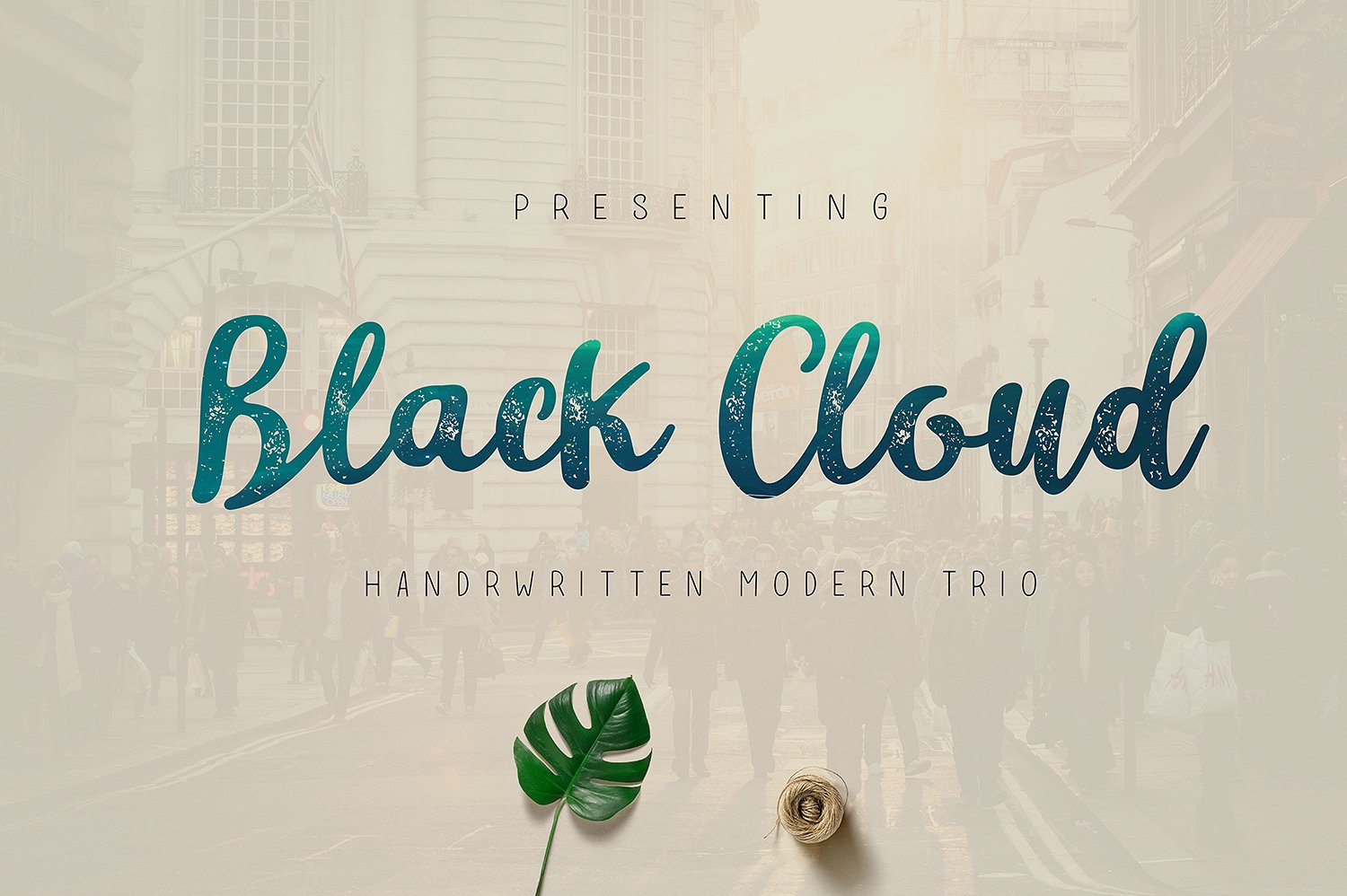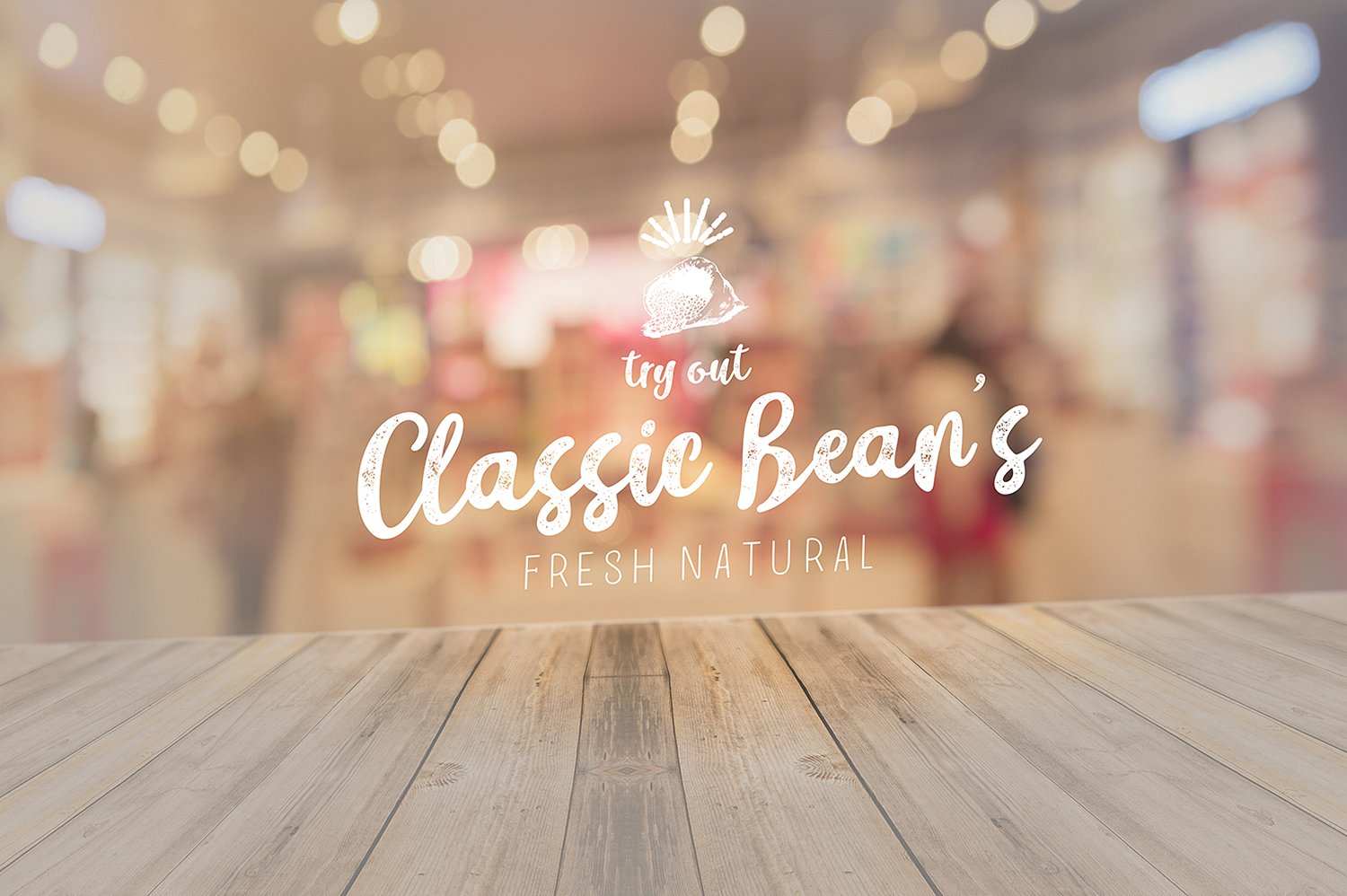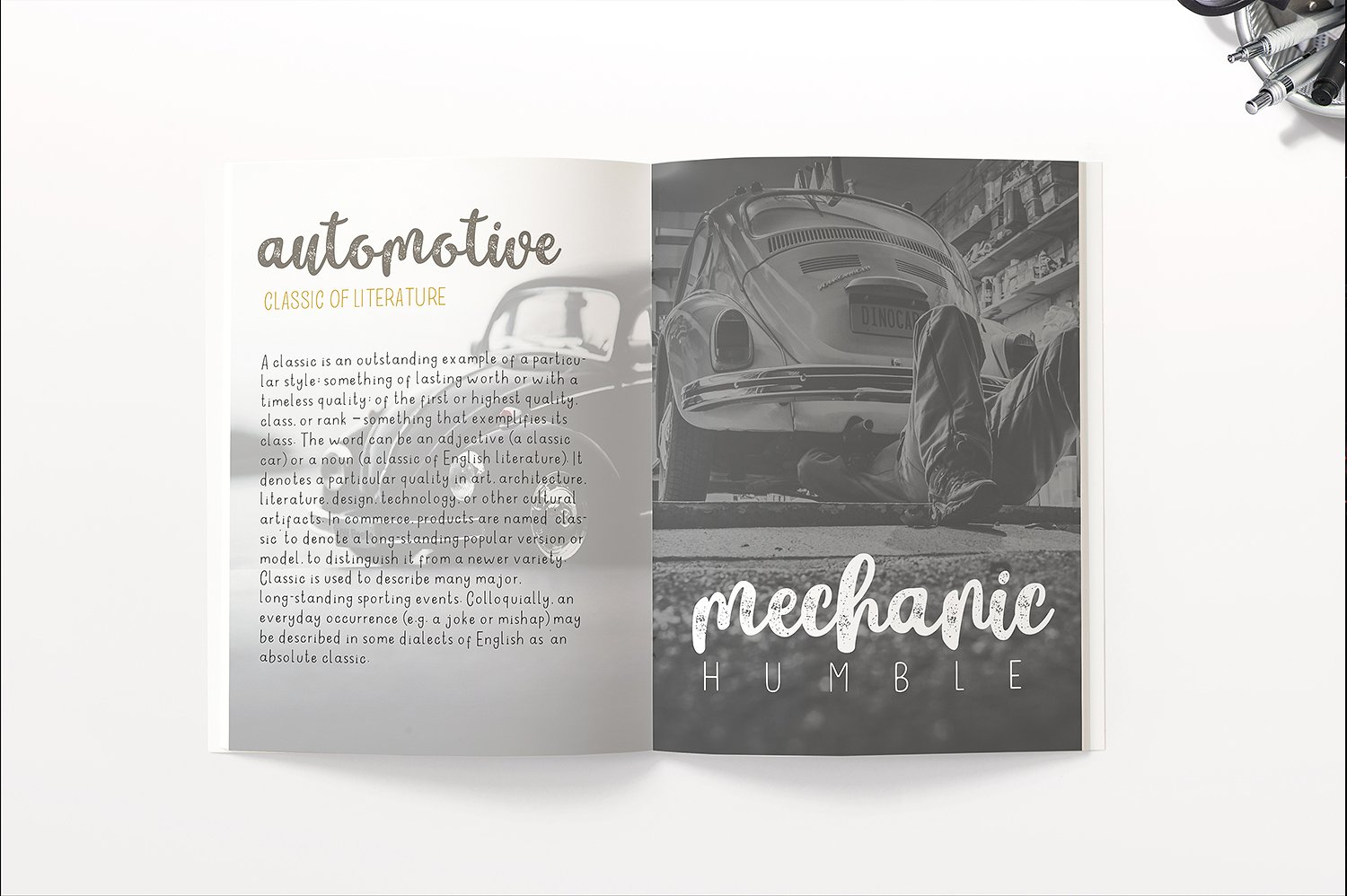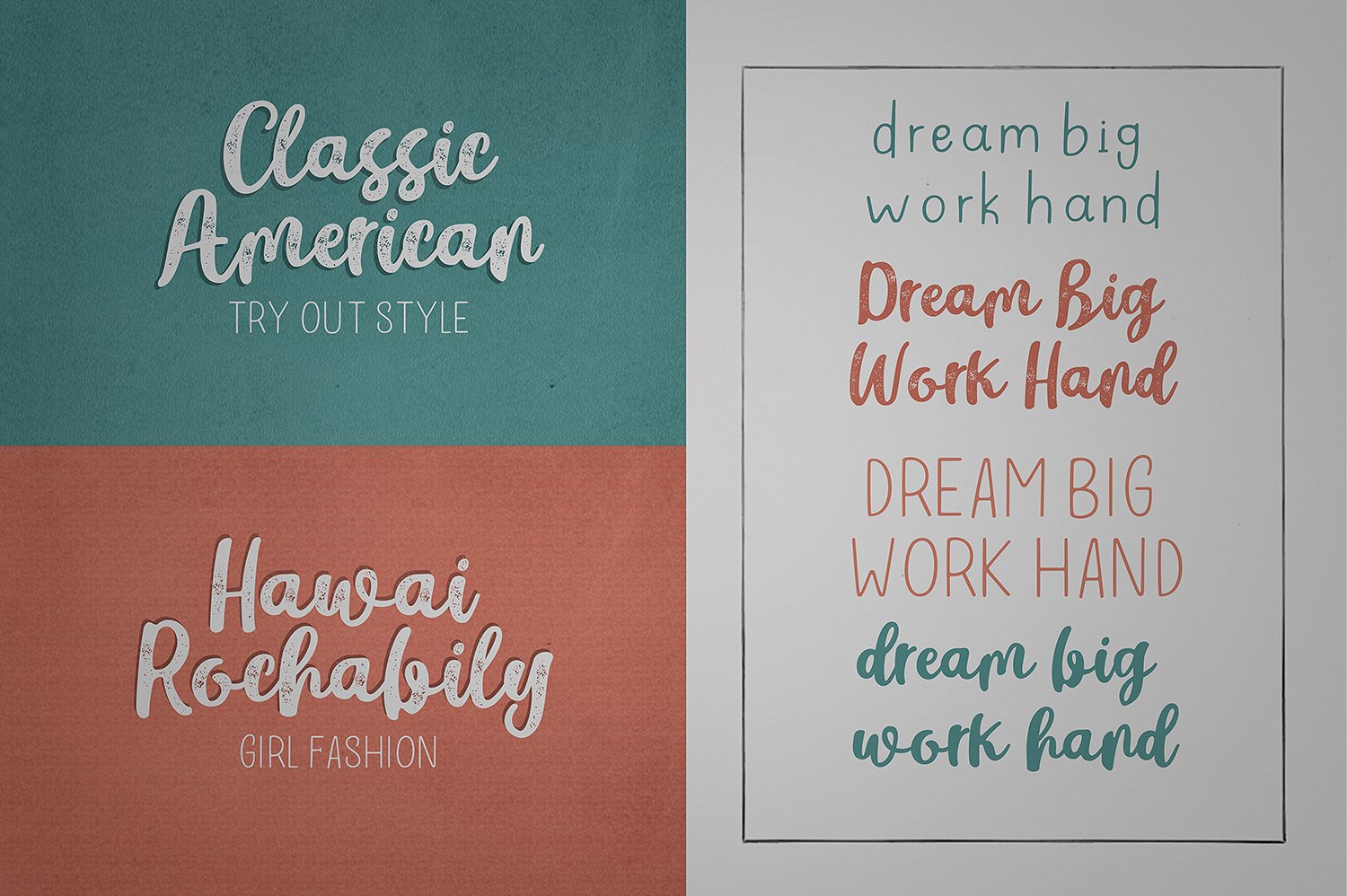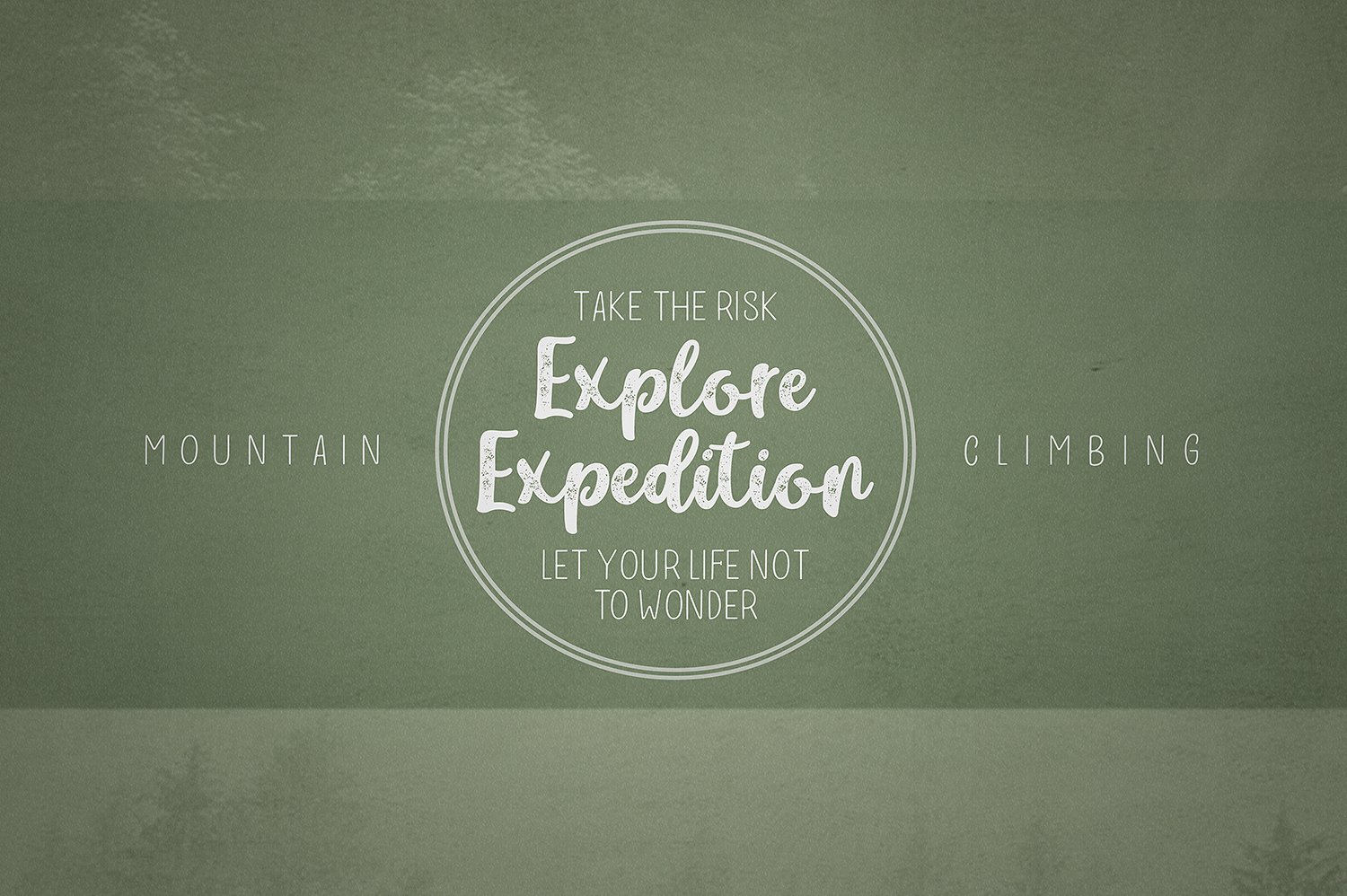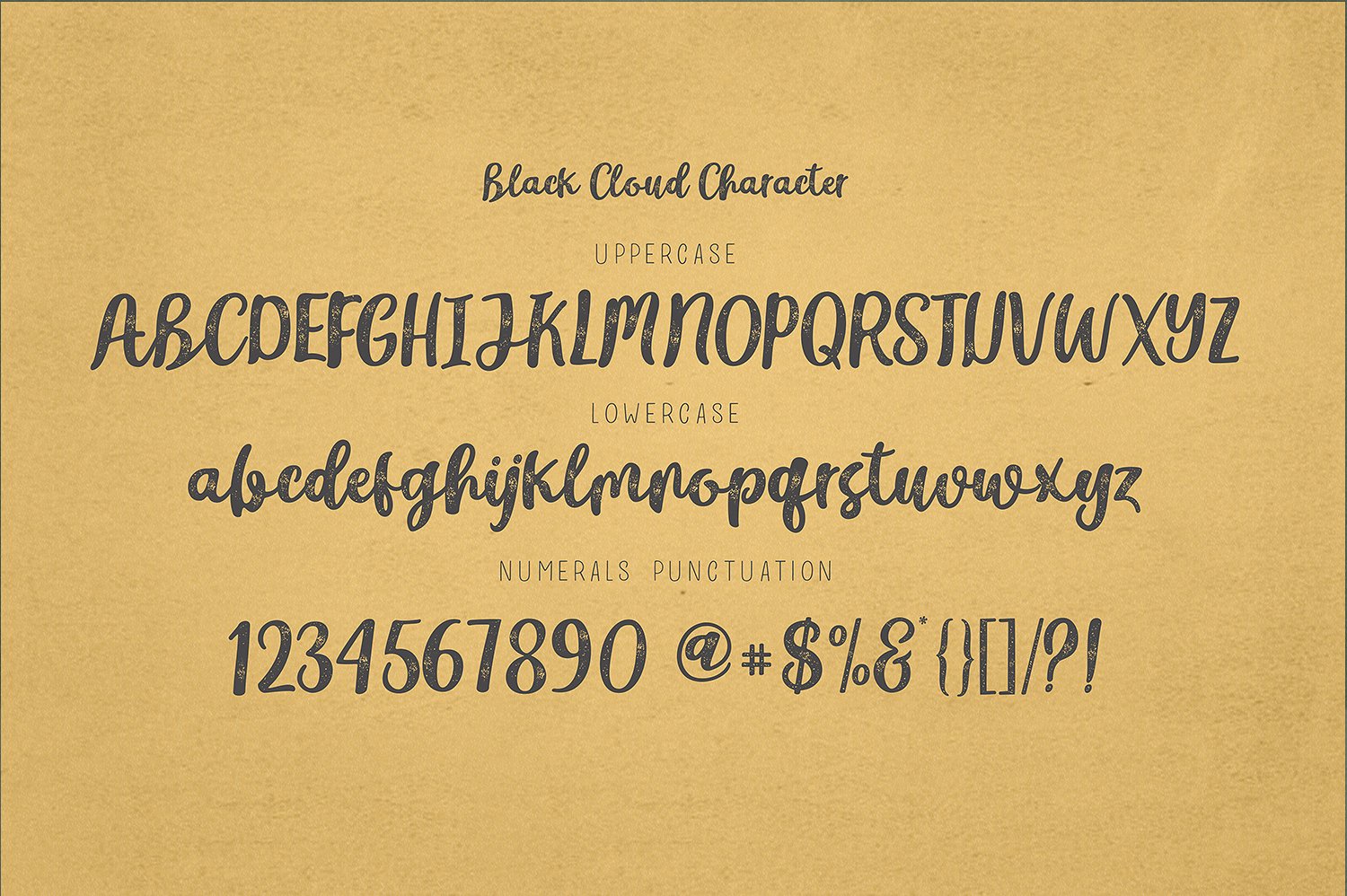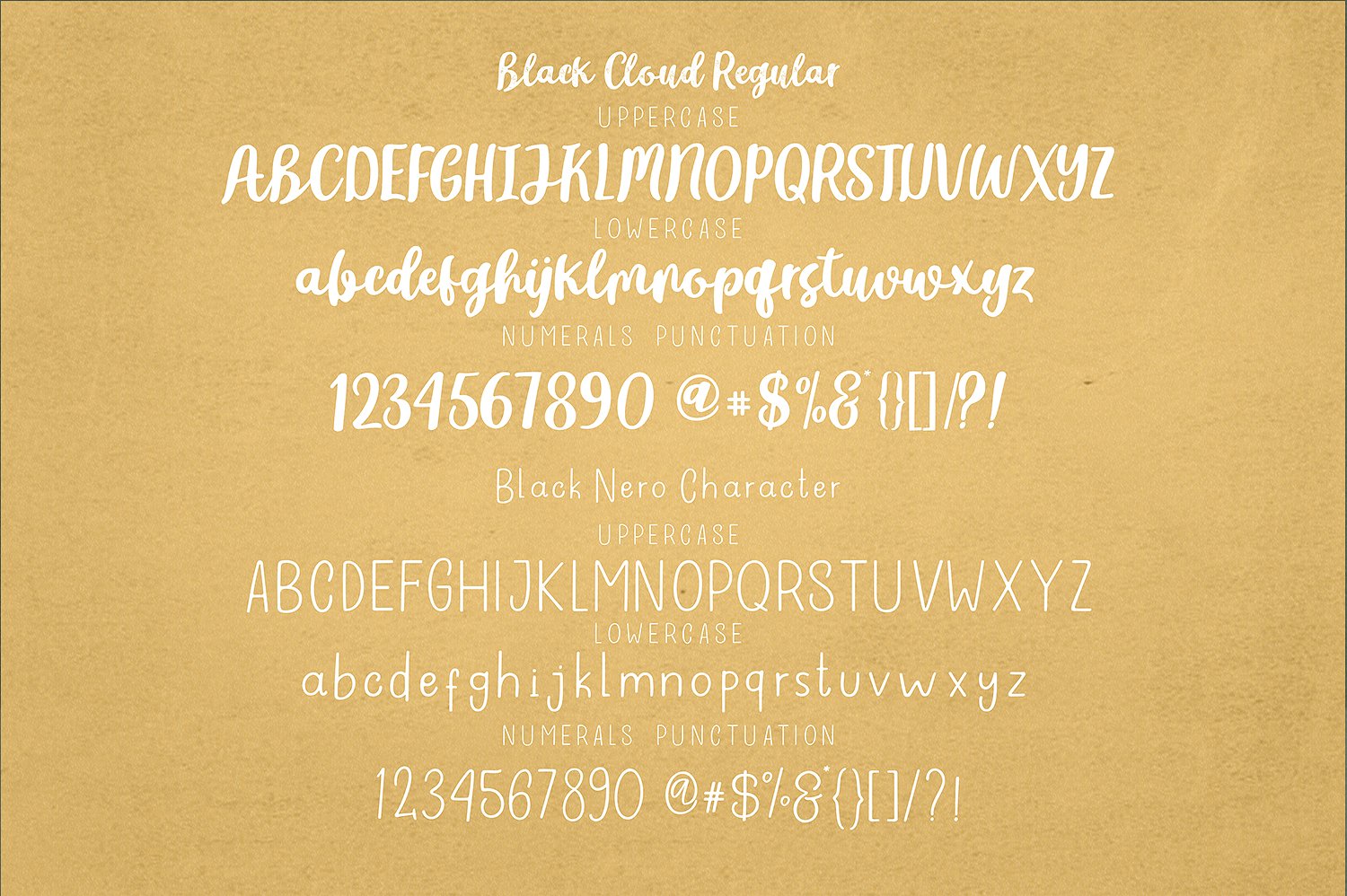
Black Cloud
Black Cloud Script Font
Available font Black Cloud packages are complete Vintage Script and handline fonts incorporated in a package that is cool and suitable material for your design. Please Try to make the material your design, all of your design needs such as projecting, invitations, greeting cards, signatures, watermarks, logos, handwriting and many more.